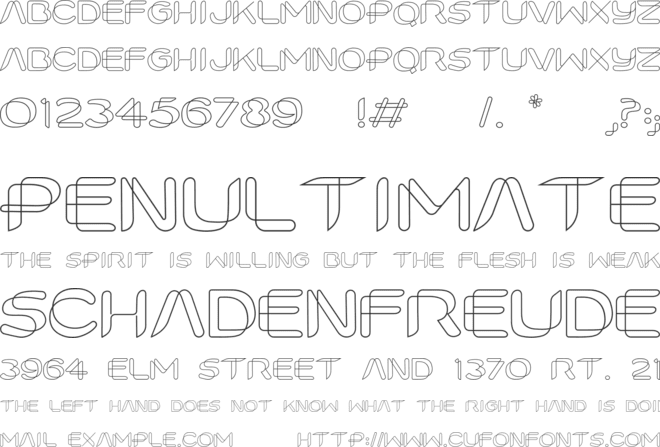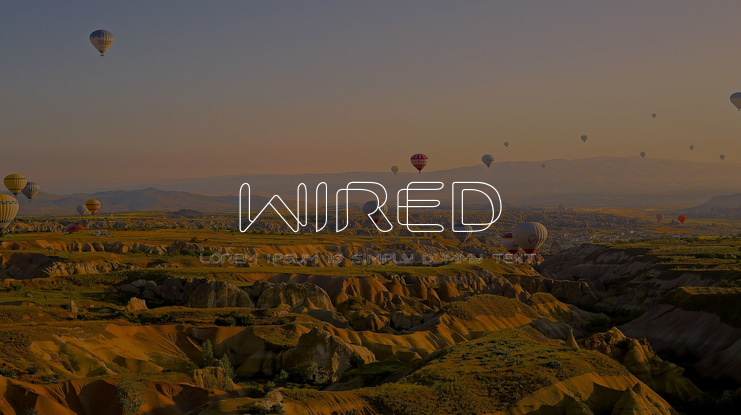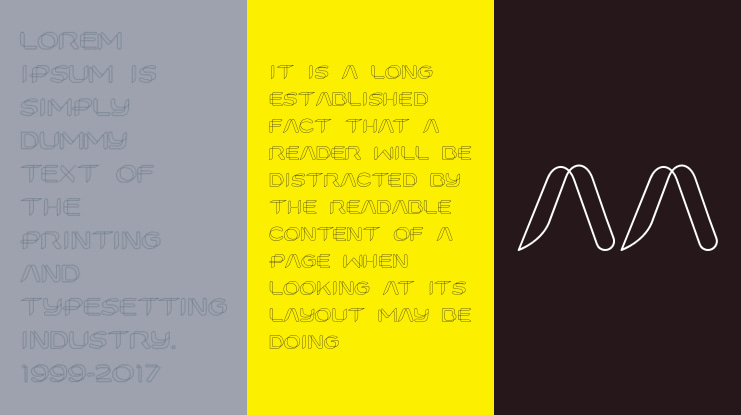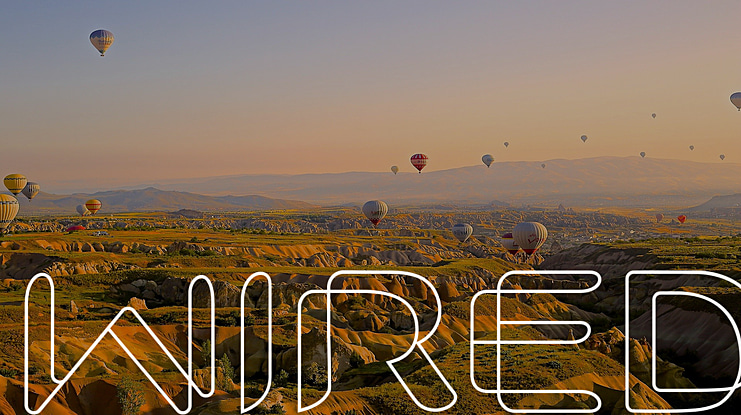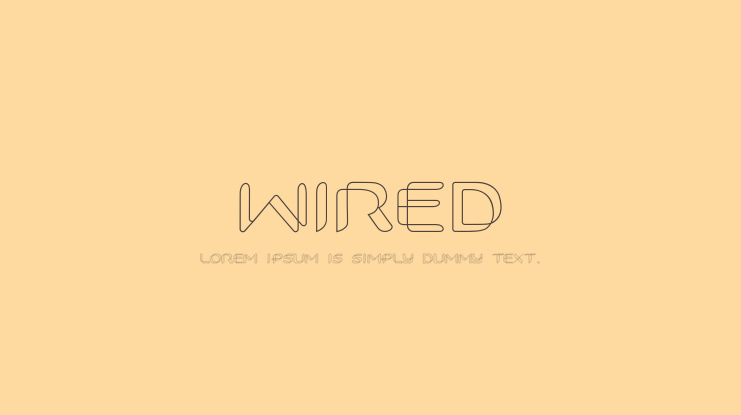
Wired Font
Font Wired is our new free font made by one single line drawing, A single line font that uses one line to define the shape of each glyph. With this font, we also want to be sure that you have the glyph (symbol, letter, character) that you need. Learn more: https://uifreebies.net/font/free-font-wired